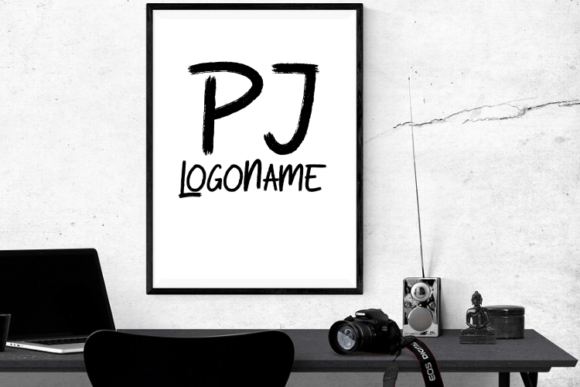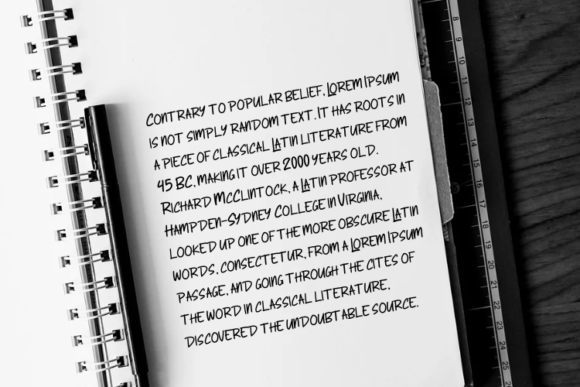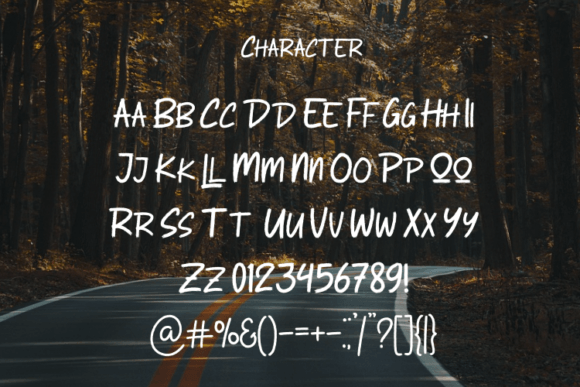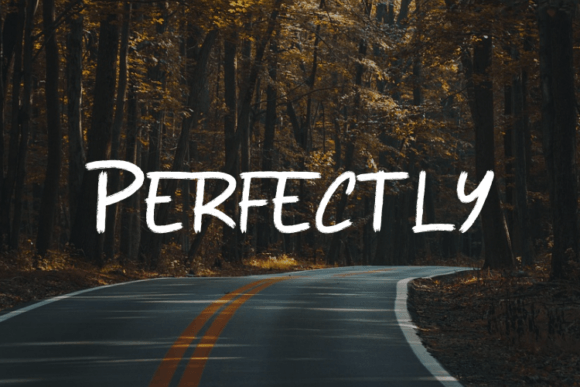
About Laizer Attack Font
Laizer Attack is a script typeface that has a simple style & modern look.This typeface is perfect for an elegant & luxurious logo, book or moviedesign titles, fashion brands, magazines, clothing, fonts, quotes, and more.